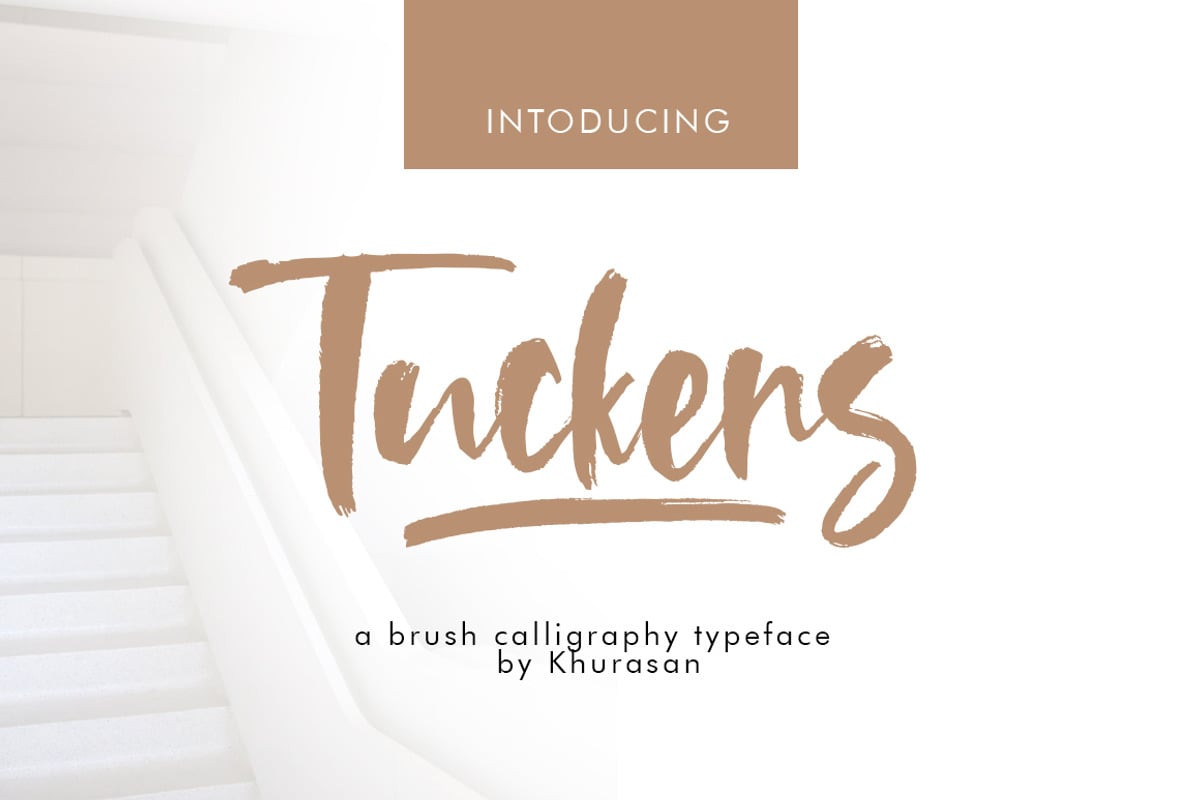
Tuckers Brush Font
Elevate your designs with Tuckers - a fresh handwritten brush font that perfectly balances elegance with vintage charm. This distinctive script typeface features beautiful brush-style lettering that brings warmth and personality to any project. The character set delivers that perfect handcrafted feel while maintaining excellent readability across applications. Tuckers includes everything you need for professional typography work: Complete uppercase and lowercase letter sets Multi-lingual support...